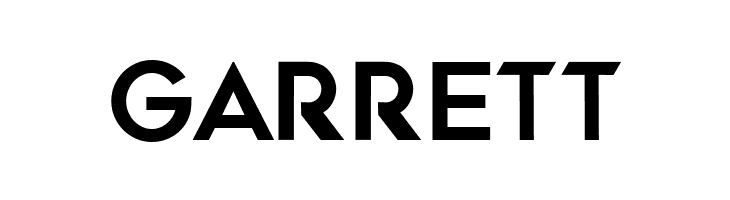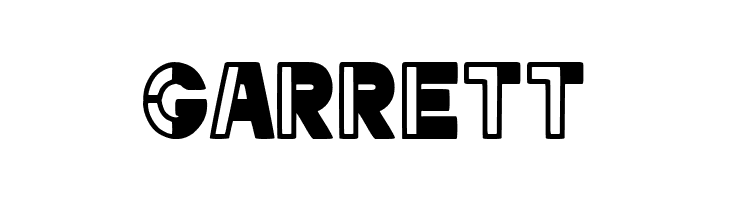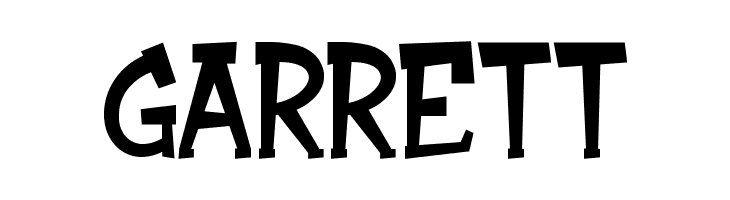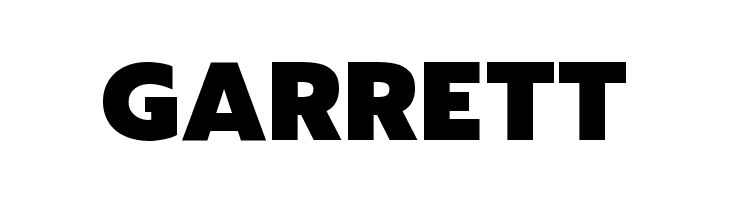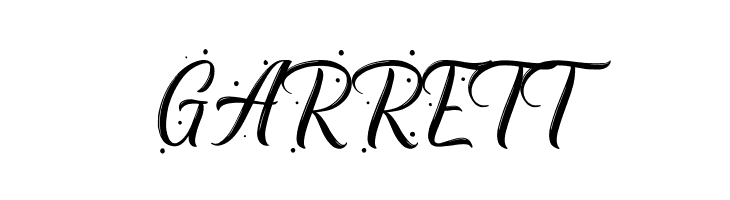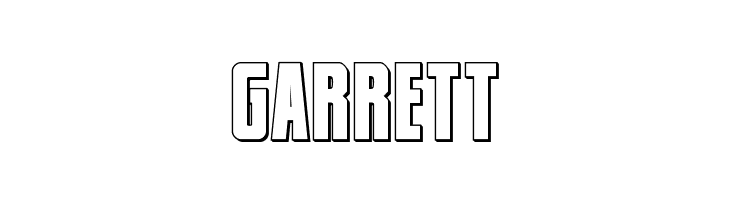
• Captain Canaveral Italic
A bold, italic font with angular lines and a dynamic, modern style.
• Captain Canaveral Leftalic
A bold, slanted font with a dynamic and energetic style.
• Captain Canaveral Leftalic
A bold, left-leaning font with a dynamic and energetic style.
• Captain Canaveral Outline
A bold, outlined font with a modern, geometric design.
• Captain Canaveral Outline
A bold, outlined font with a modern, futuristic style.
• Captain Canaveral Outline Ital
A bold, italicized outline font with a modern and dynamic style.
• Captain Canaveral Outline Ital
A bold, outlined, and italicized font with a modern and futuristic style.
• Captain Canaveral Super-Italic
A bold, italic font with a modern, dynamic style and high contrast.
• Captain Canaveral Super-Italic
A bold, italic font with sharp, angular lines and a dynamic forward slant.
• Captain CanaveralSemi-Italic
A bold, semi-italic font with a dynamic and modern style.
• Captain CanaveralSemi-Italic
A bold, semi-italic font with a dynamic and modern style.
• Captain David Portland DEMO
A playful, energetic script font with a hand-drawn appearance.
• Captain Jerry Demo
A bold, playful font with a hand-drawn, comic book style.
• Captain Kangaroo - Personal Use
A playful, bold handwritten font with dynamic strokes.
• Captain Magical
An elegant script font with decorative dots and flowing cursive strokes.
• Captain Redemption
A bold, brush-style font with dynamic, slanted characters.
• Captain Stencil
A bold, stencil-style font with geometric shapes and cut-out sections.
• CaptainMarvel
A bold, modern sans-serif font with clean, geometric lines.
• CaptainSwabbyNF
A bold, playful font with a three-dimensional outline and geometric style.
• CaptivateDEMO
A graceful and elegant script font with fluid, connected letters.
• Captura Heavy Demo
A bold and impactful font with thick strokes and a strong presence.